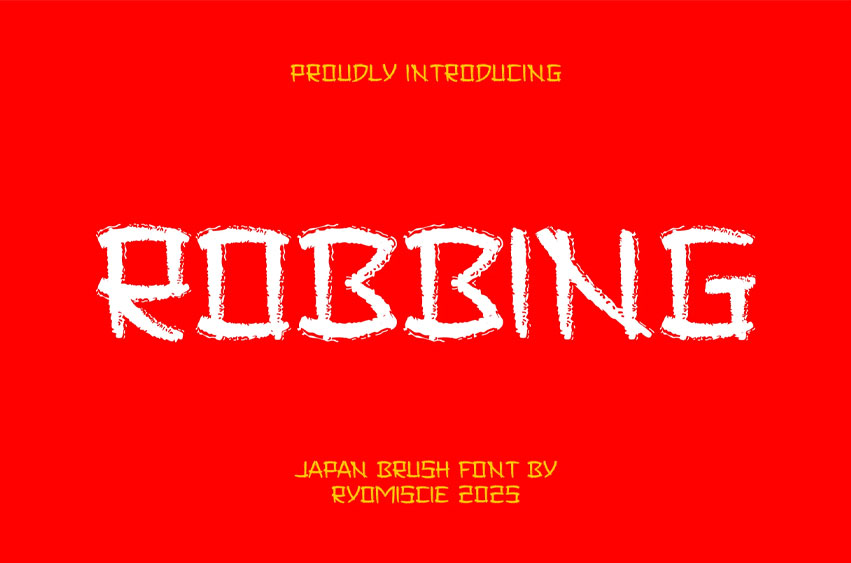
Robbing Font Modern Font is a bold and authentic display font. The font is suitable for any branding project like logo, t-shirt printing, esport, and many more. outstanding in a wide range of contexts.